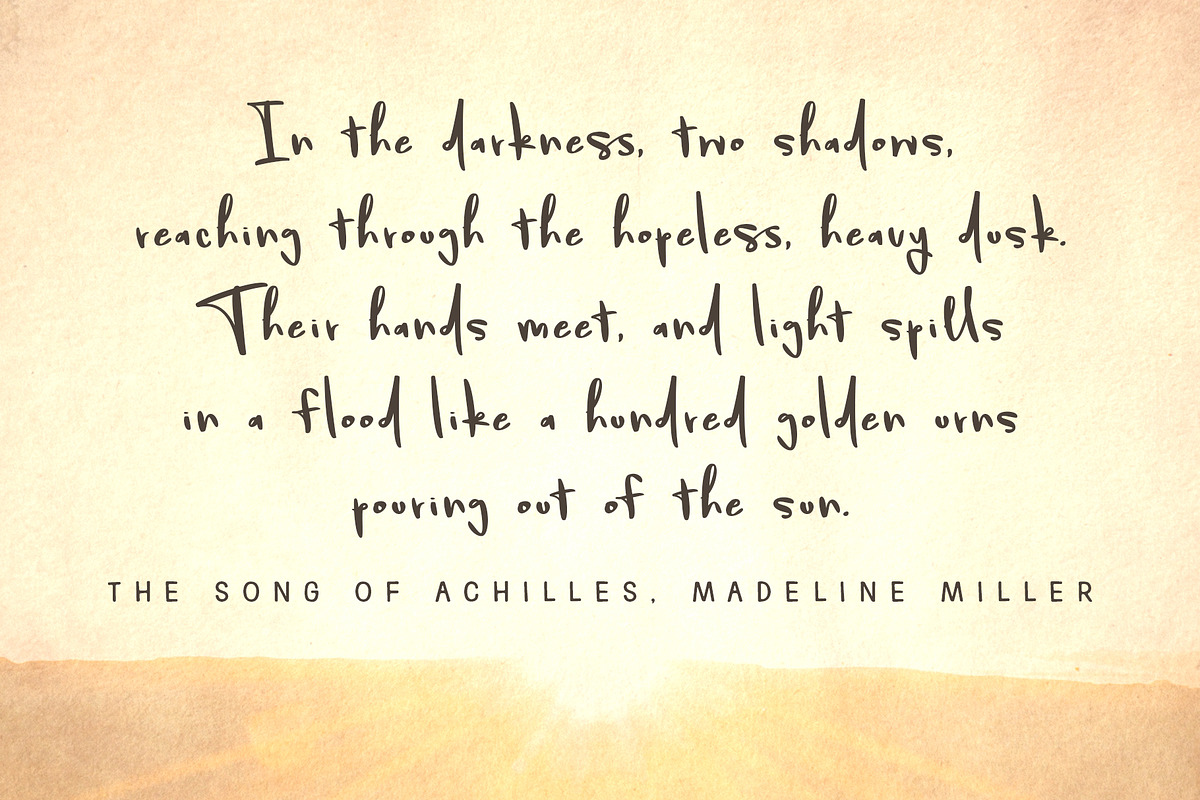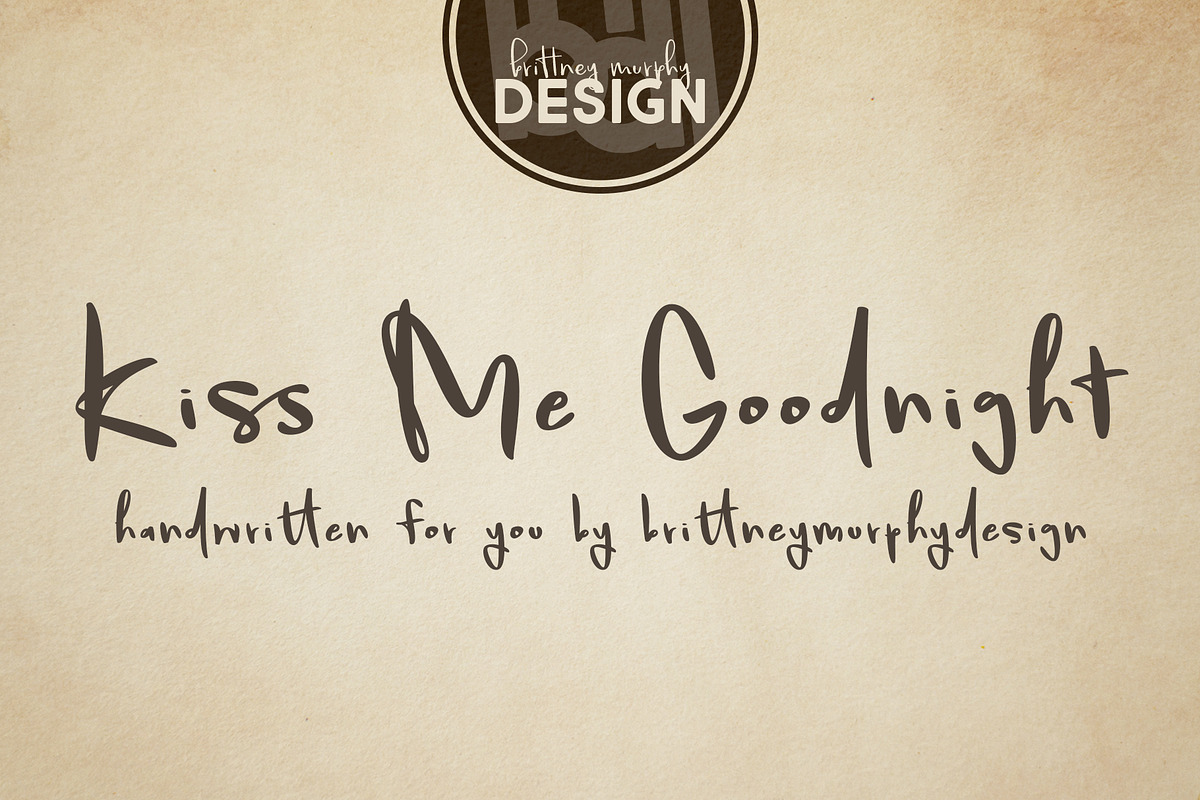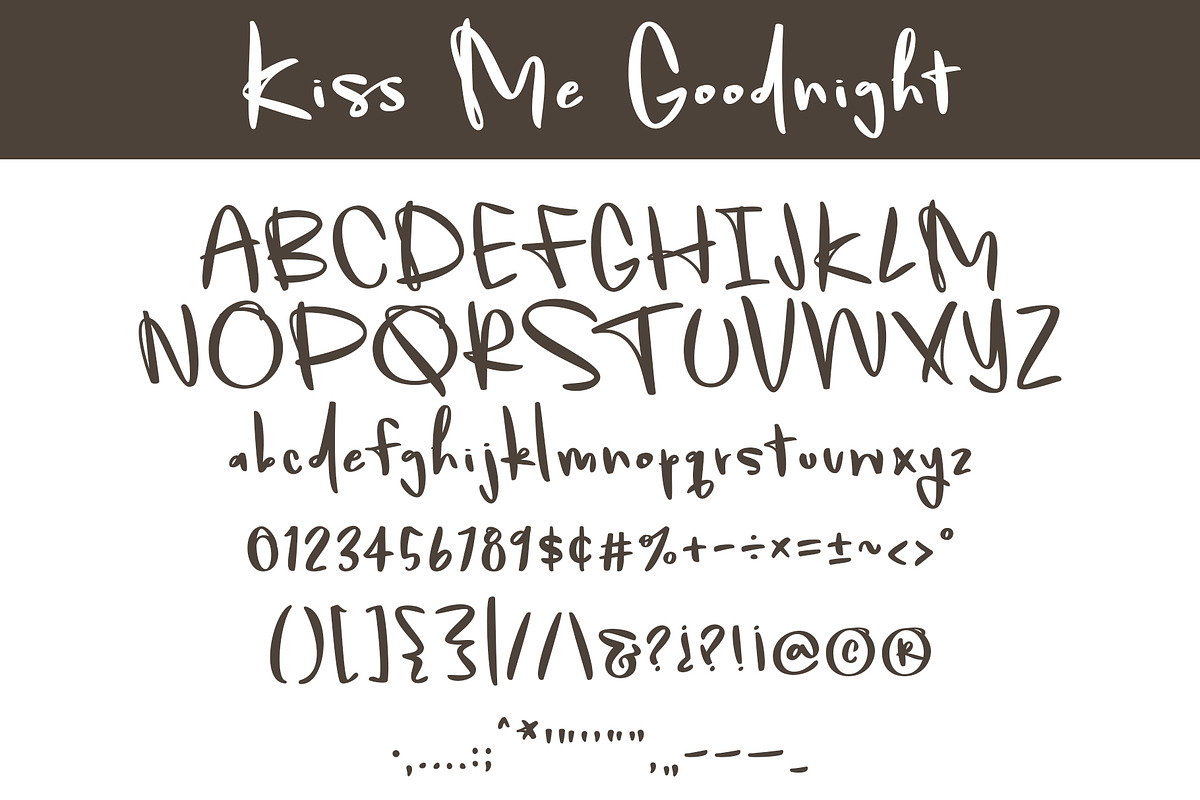
Kiss Me Goodnight
The Kiss Me Goodnight Font is a tender handwritten script. Perfect for signs and decor or romantic branding. The thin upstrokes give it a realistic and luxurious feel.
Includes three ligatures: ll, ss, and tt.